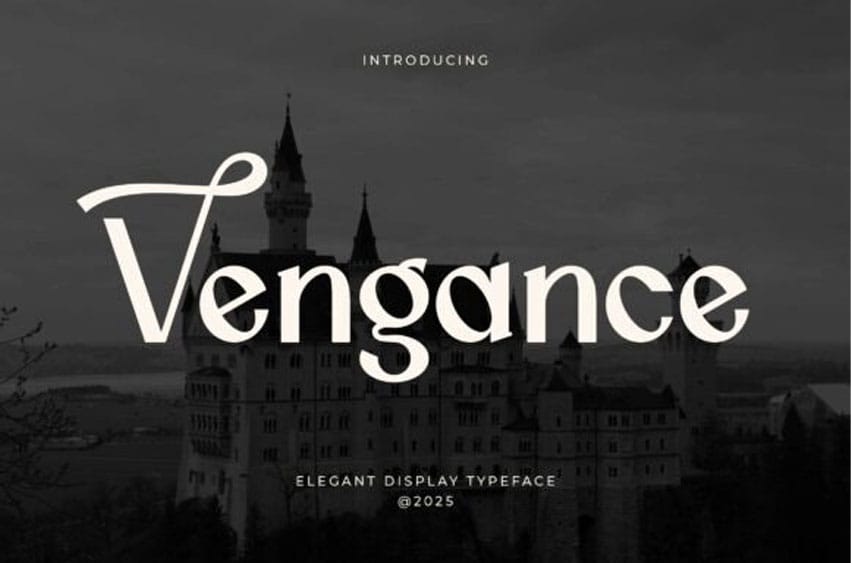
Vengance Font is a striking serif display font with dramatic flair and sharp elegance. Inspired by classic European typography with a modern edge, it features unique letterforms, expressive terminals, and powerful contrast. Its eye-catching style makes it ideal for luxury branding, cinematic titles, editorial layouts, and statement-making designs that demand attention.
This typeface balances sophistication with creativity, blending traditional serif structure with contemporary stylization. Whether you’re creating a brand identity, an upscale magazine cover, or fantasy-themed projects, Vengeance elevates your visuals with timeless grace and bold precision.